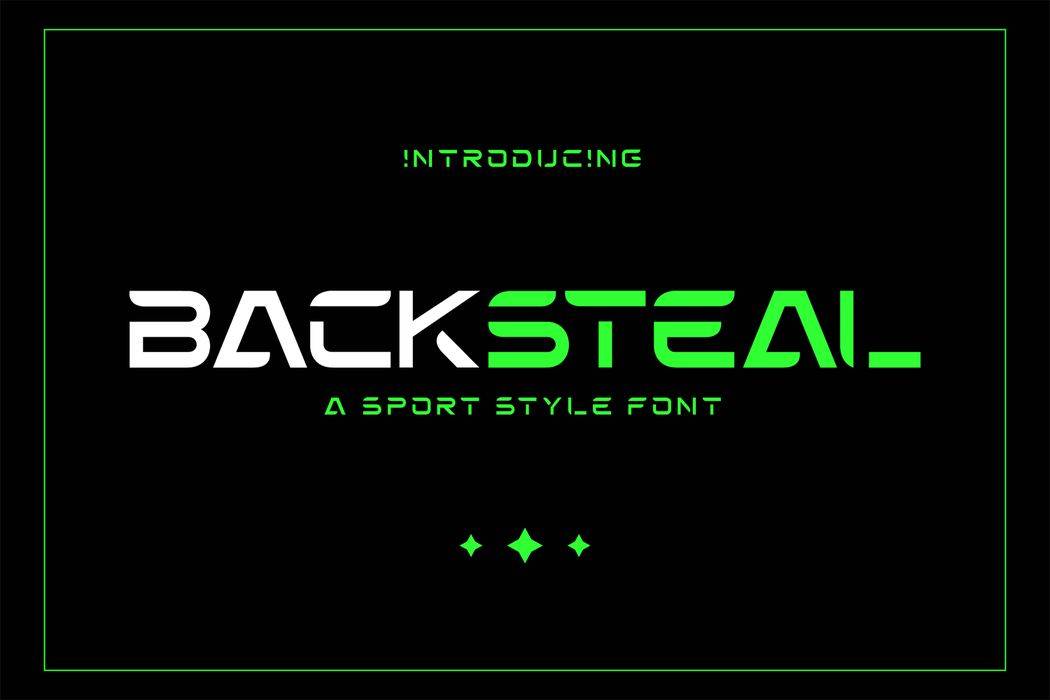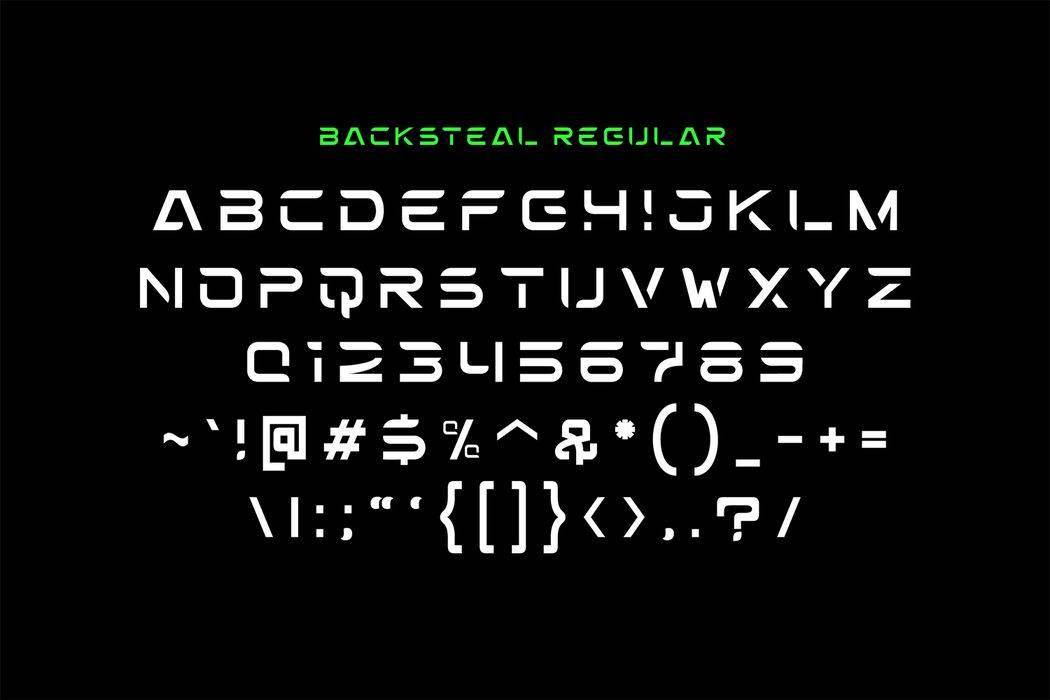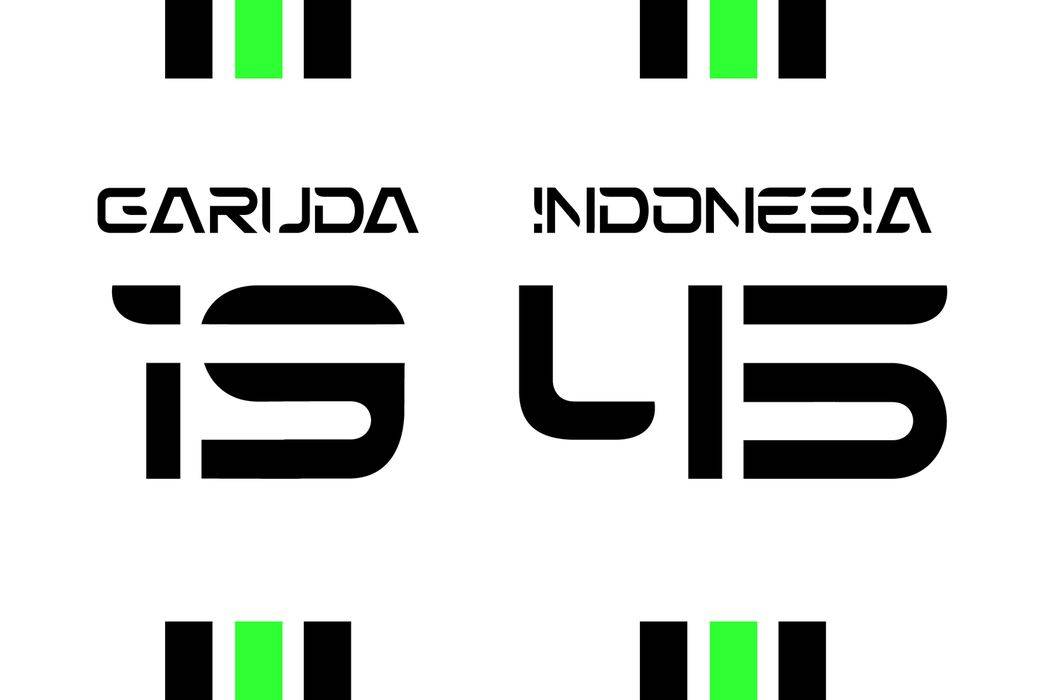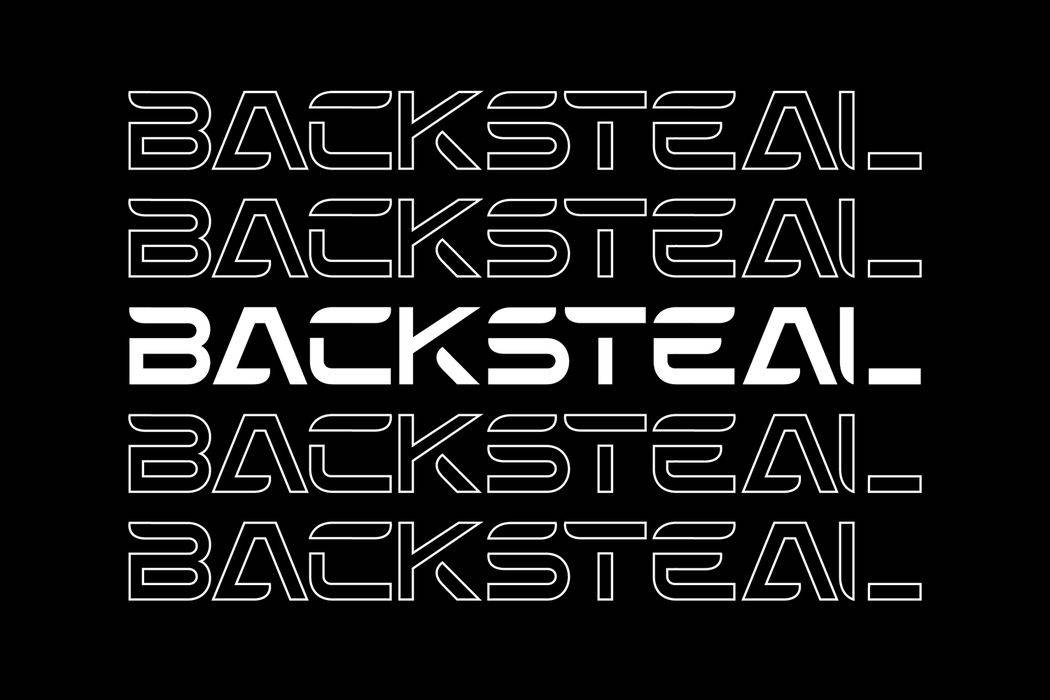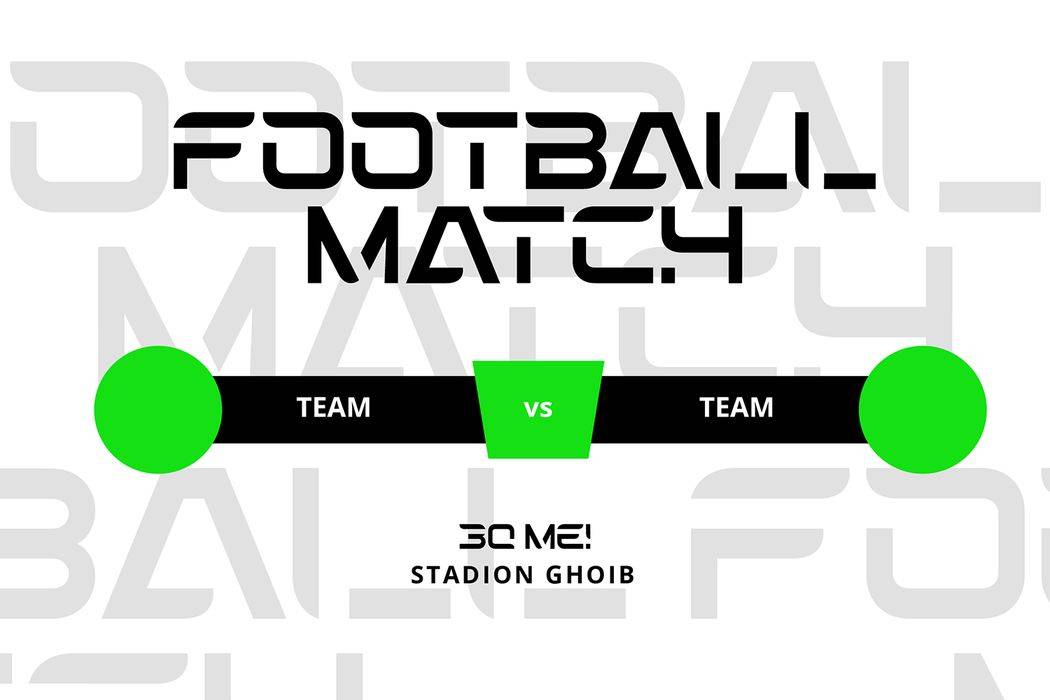
Backsteal is a bold, modern sans serif font characterized by its geometric shapes and sleek, futuristic vibe. With its sharp angles, cut-out strokes, and squared forms, it brings a dynamic and tech-savvy feel, ideal for striking headlines, branding, and designs that want to convey innovation and edge. This font works especially well in logos and posters where a strong, contemporary statement is needed.
Backsteal Font
About Backsteal Font
| Font family | Backsteal Font |
| Release date | 2021-10-06 |
| Designer | Dida Ahluddin |